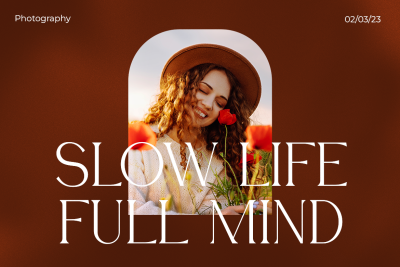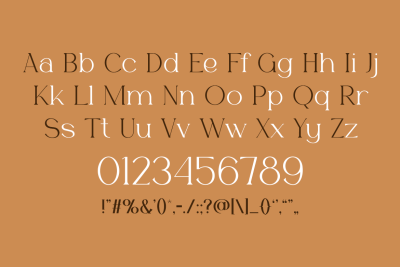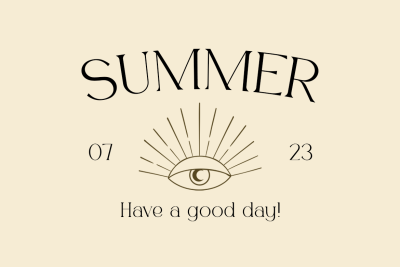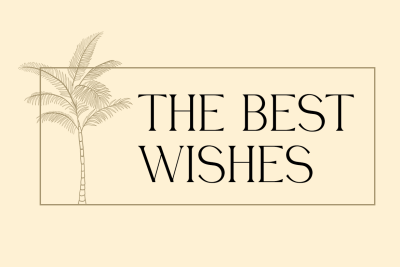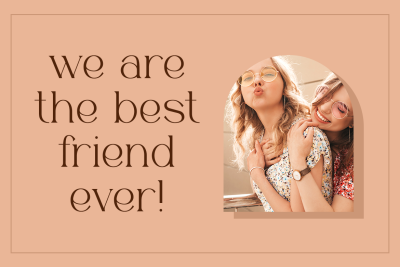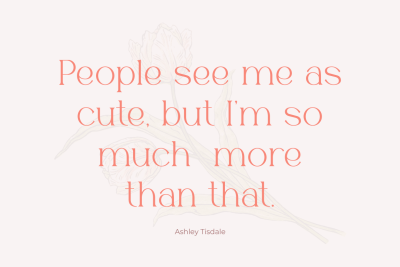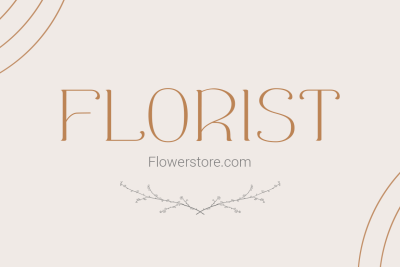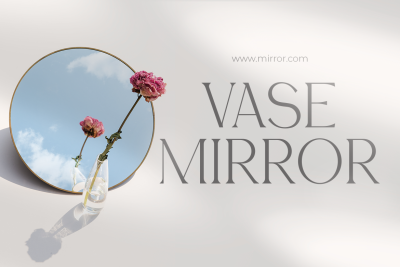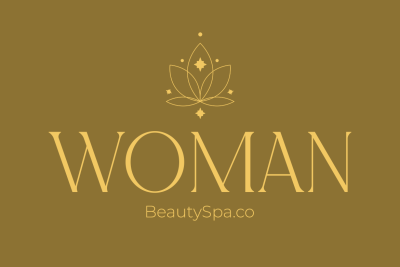
instagram font marshanda
Instagram Font Marshanda is a bohemian-inspired display typeface that combines elegance with artistic flair. Its tall, slender letterforms and subtle serifs create a refined, free-spirited vibe, making it perfect for stylish, relaxed designs. Marshanda’s unique curves and balanced proportions add a smooth flow and rhythm. This blend of sophistication and boho style adds personality and elegance to any design, enhancing both digital and print projects.
With high-contrast strokes and delicate serifs, Marshanda offers a modern, eye-catching look. It’s highly versatile, especially on platforms like Instagram, where unique aesthetics are essential. The font’s clean design works well for branding, quotes, headers, and logos. Marshanda captures attention and keeps the focus on the message, making it ideal for stylish social media posts and visuals that need a graceful touch.
Instagram Font Marshanda Ideal For
The Instagram Font Marshanda is perfect for brands and individuals seeking a bohemian yet refined style. Boutique brands, lifestyle products, beauty lines, and fashion designers benefit from Marshanda’s elegant, creative edge. It projects a relaxed, stylish identity while maintaining professionalism. Additionally, content creators on Instagram, Pinterest, and similar platforms can use it to add charm to posts, stories, and captions, engaging their audience effectively.
Furthermore, Marshanda suits design agencies, freelancers, and creatives in branding and editorial projects. Its adaptability makes it ideal for logos, social media graphics, and marketing materials needing a fresh look. Marshanda also shines in print, such as wedding stationery, event invitations, and magazine covers, where sophistication meets bohemian charm. By using Marshanda, designers add creativity and grace, making it a valuable choice for projects that stand out with a unique, artistic feel.
Beyond its aesthetic versatility, the Instagram Font Marshanda is ideal for projects that evoke warmth and authenticity. The font’s bohemian flair resonates well with brands that celebrate individuality, creativity, and artisanal values. Small businesses with a handcrafted focus, wellness brands emphasizing natural beauty, and eco-friendly product lines can use Marshanda to reflect their ethos. Its distinctive style brings a friendly, approachable vibe while still looking polished, making it an excellent choice for designers aiming to connect with audiences on a personal level.